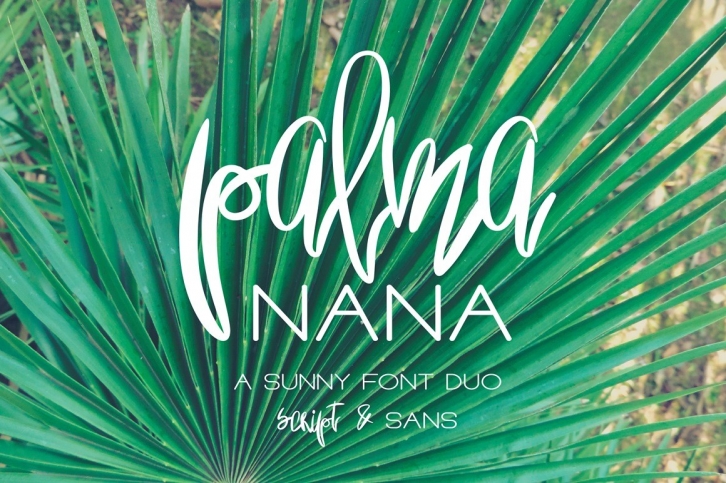
Palma Nana is a beautiful font that was designed by Anastasiia Macaluso. It's a great choice for designers and creatives who need such a font. It was released on July 25, 2017 and the file size is 11.91 MB. Palma Nana may give a more youthful, expressive and casual look to your project. It is a very beautiful, refined, elegant, and high-quality font.